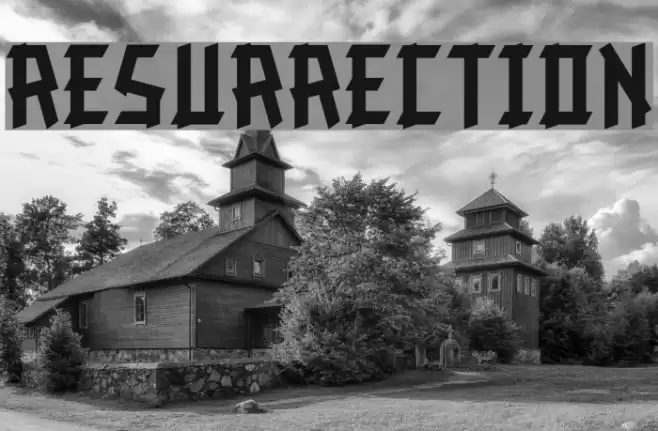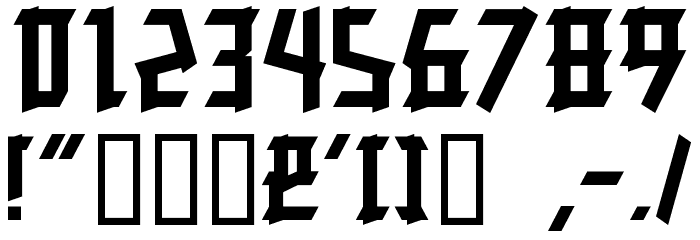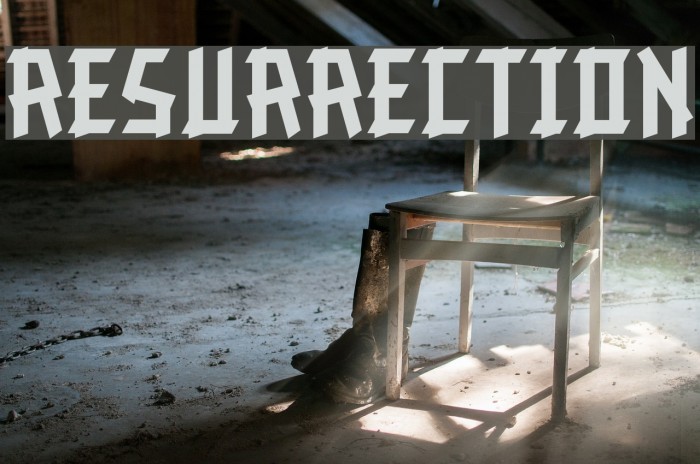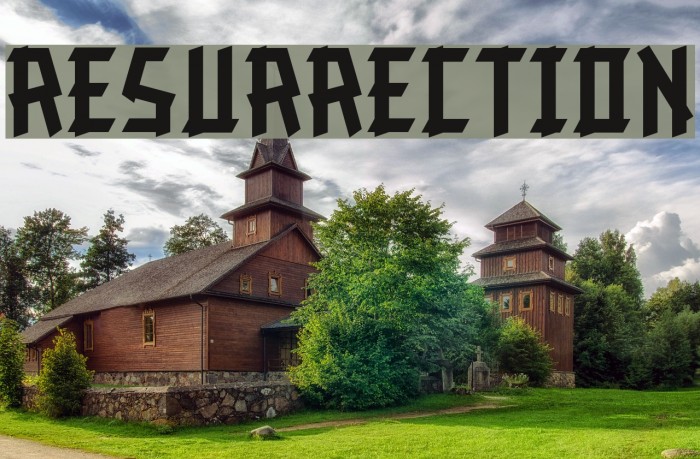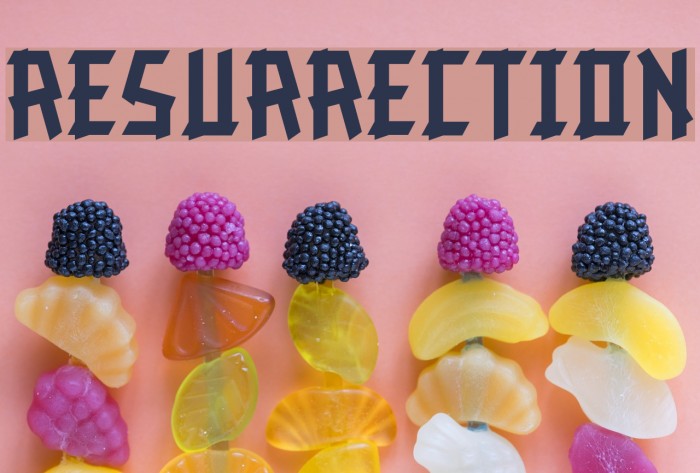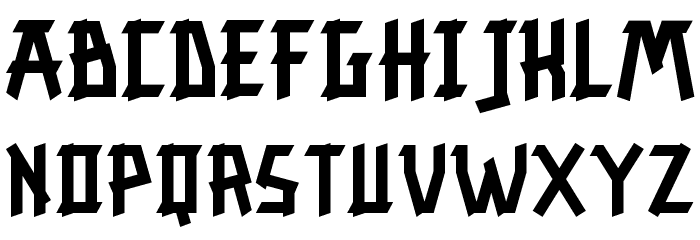
Resurrection Font
Resurrection Description
This font features a bold and striking design with sharp, angular edges and a strong presence. The characters are heavily stylized, reminiscent of Gothic or medieval script, with a modern twist. Each letter is crafted with a unique geometric flair, creating a sense of movement and dynamism. The numbers and special characters follow the same bold and angular style, ensuring consistency throughout the typeface. This font is ideal for projects that require a dramatic and impactful visual statement.
A bold, angular font with a Gothic-inspired, modern design from Serif fonts.
- Proposed Projects: Perfect for branding, posters, album covers, and any project needing a bold, dramatic typeface.
- Overall Style: Modern Gothic